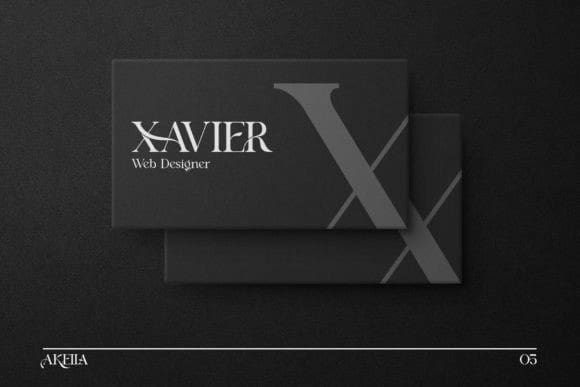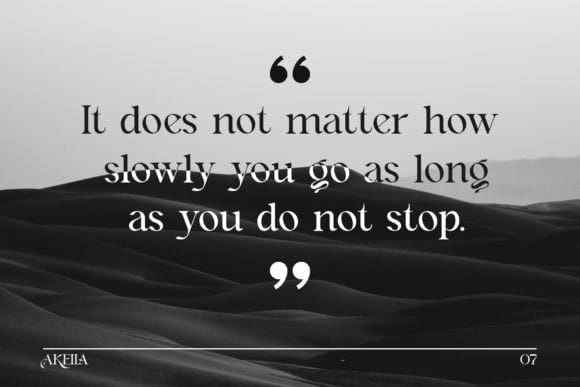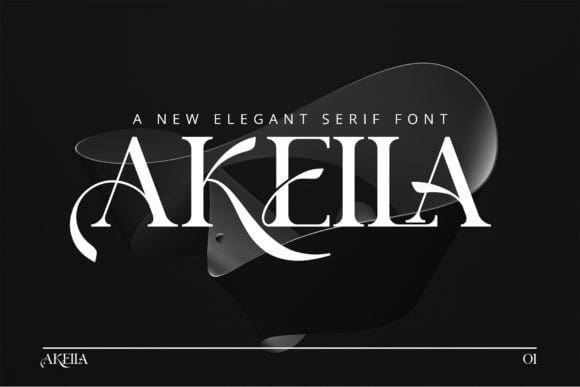
Akeila Font
Akeila Font is a balanced, smooth, elegant and stylish serif font. He has a beautiful character. It fits perfectly with invitation card designs, company logos, movie titles, movie names, business cards, book titles, brand names and various other designs. Akeila Serif is a subtle serif font that exudes sophistication and elegance. Its stylish alternations and ligatures make this font the perfect partner for any project.